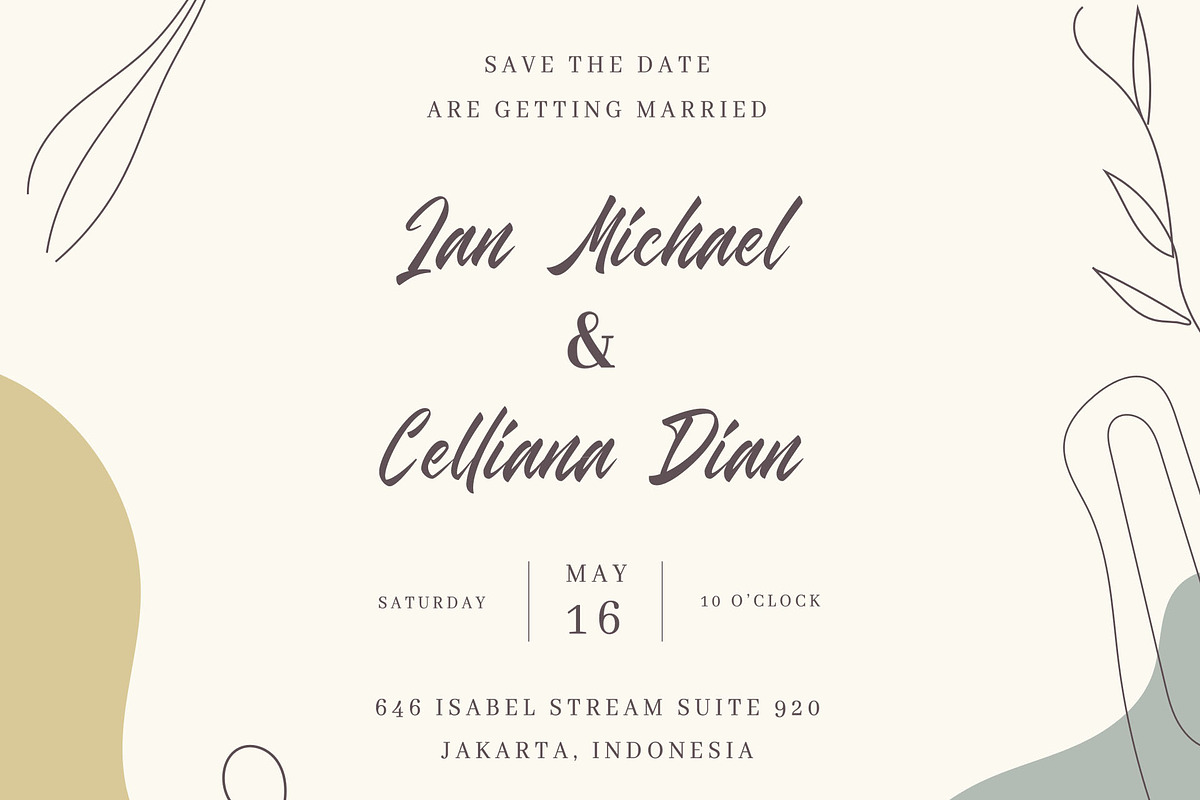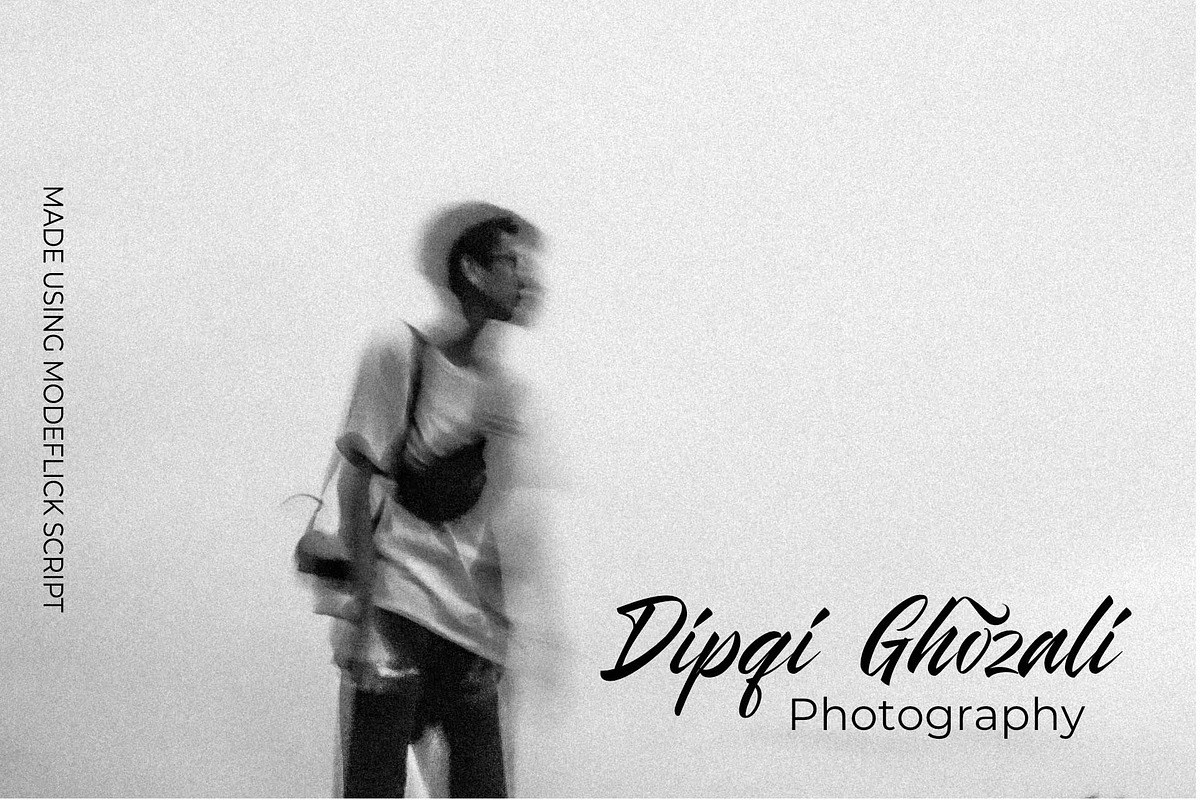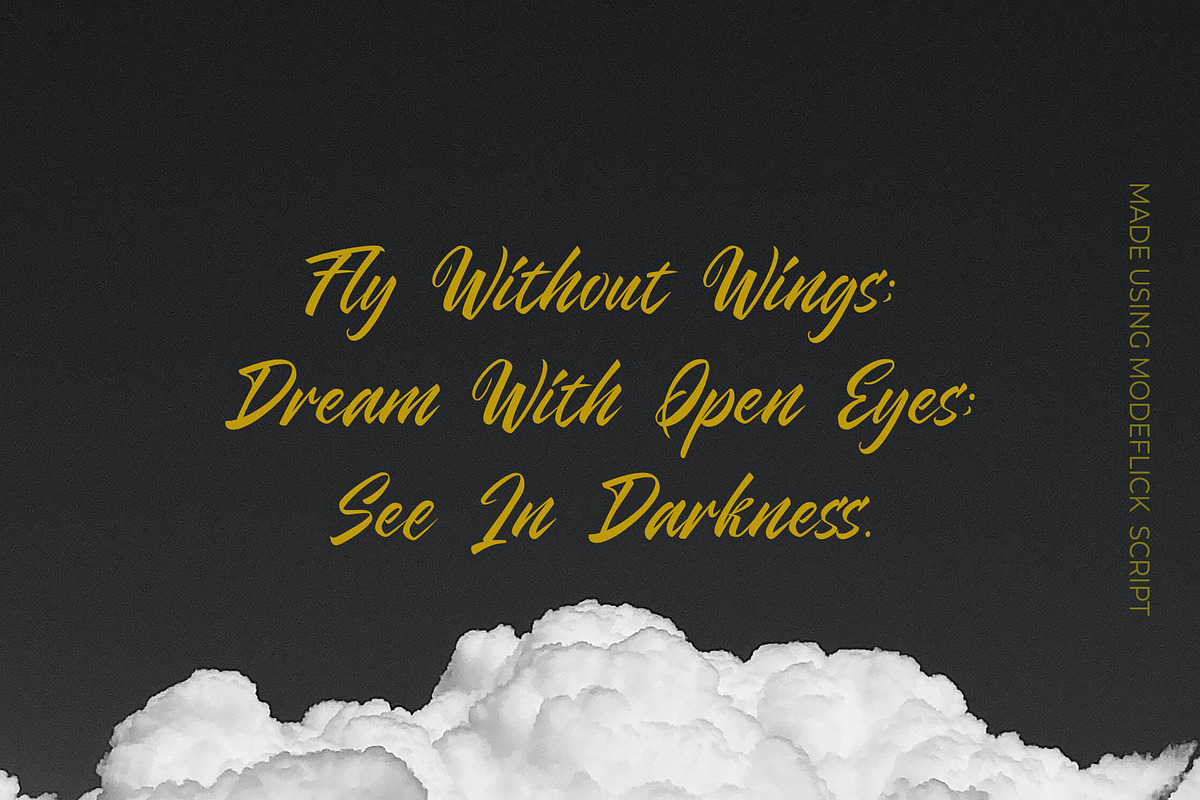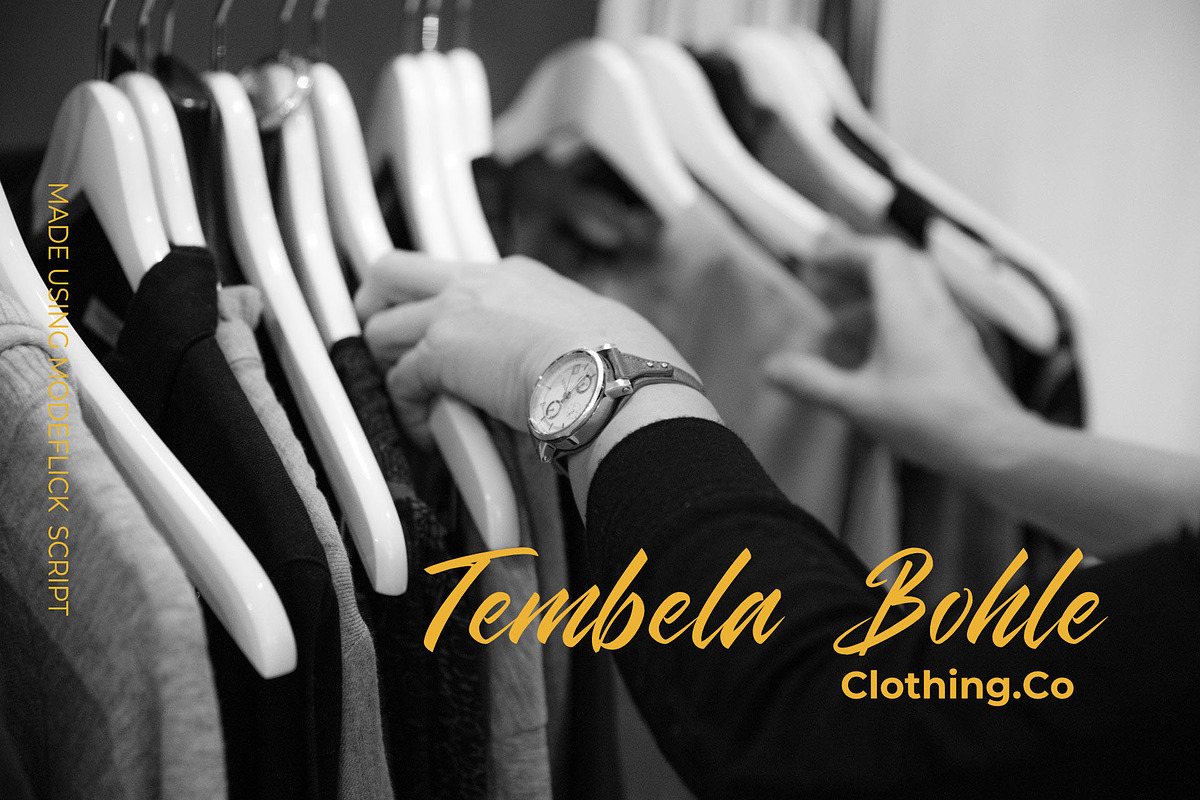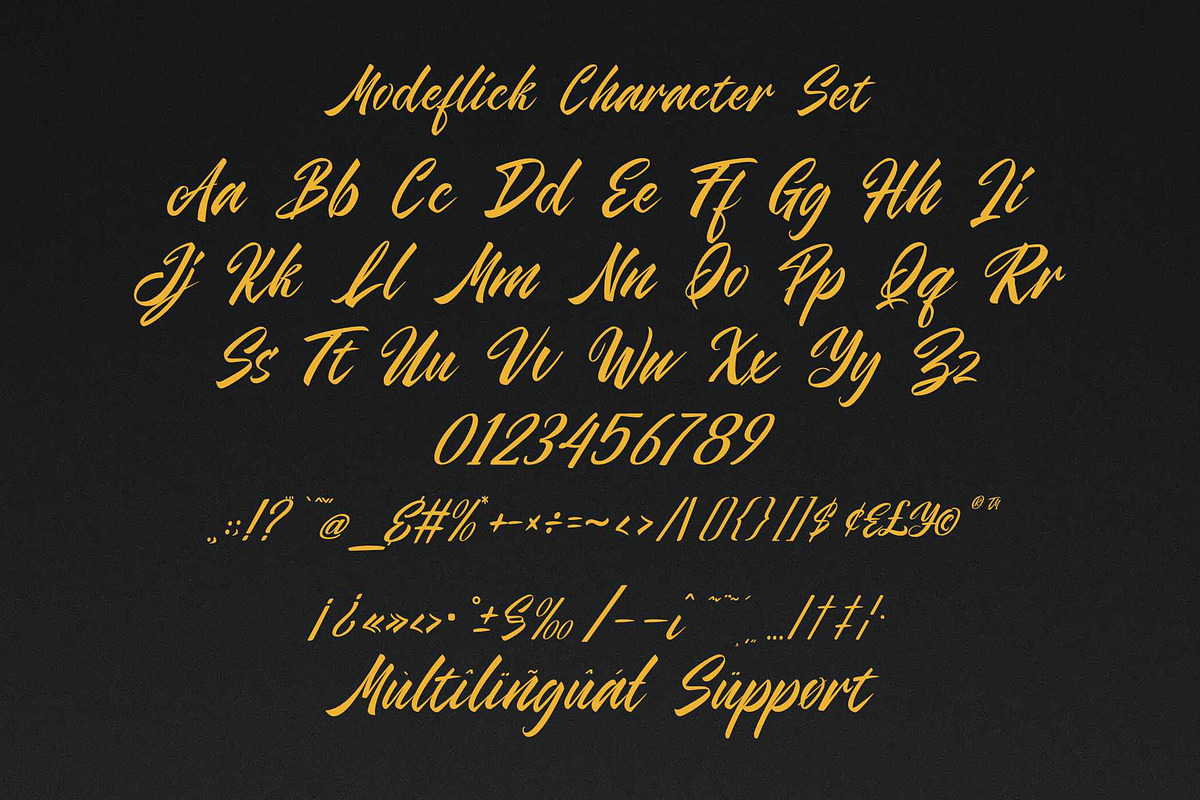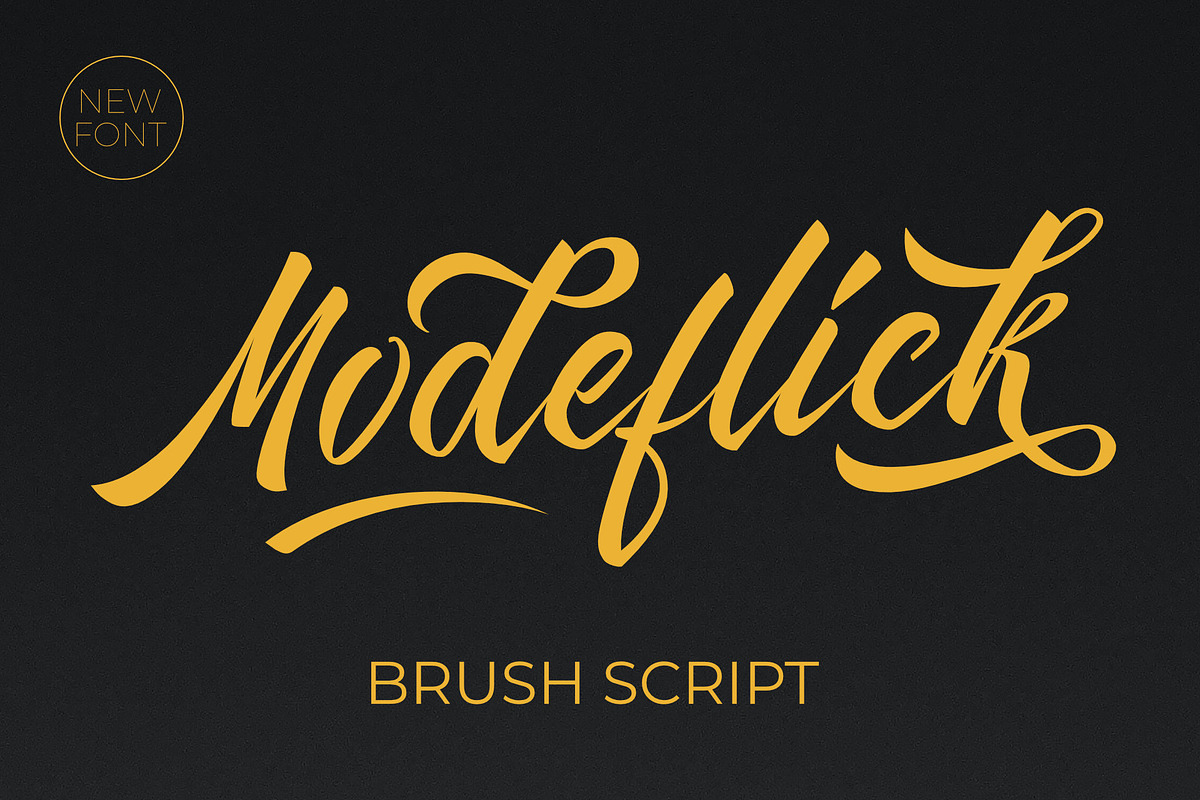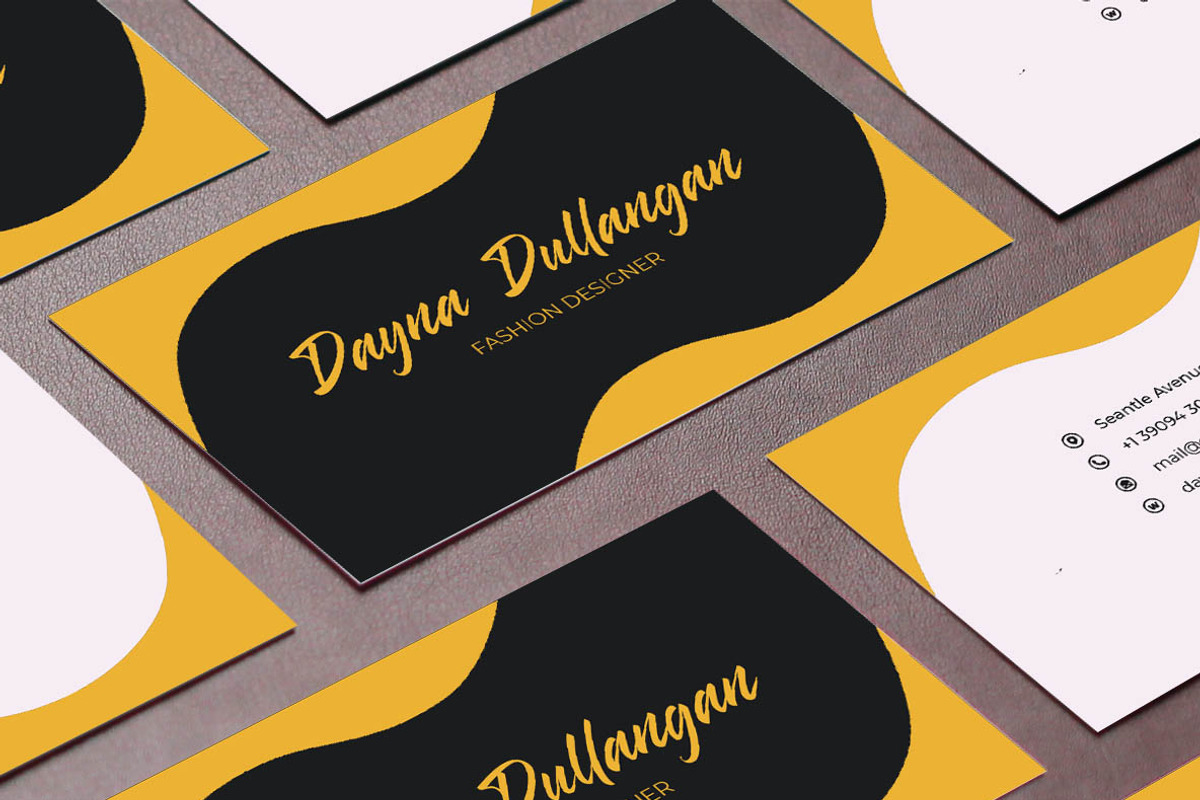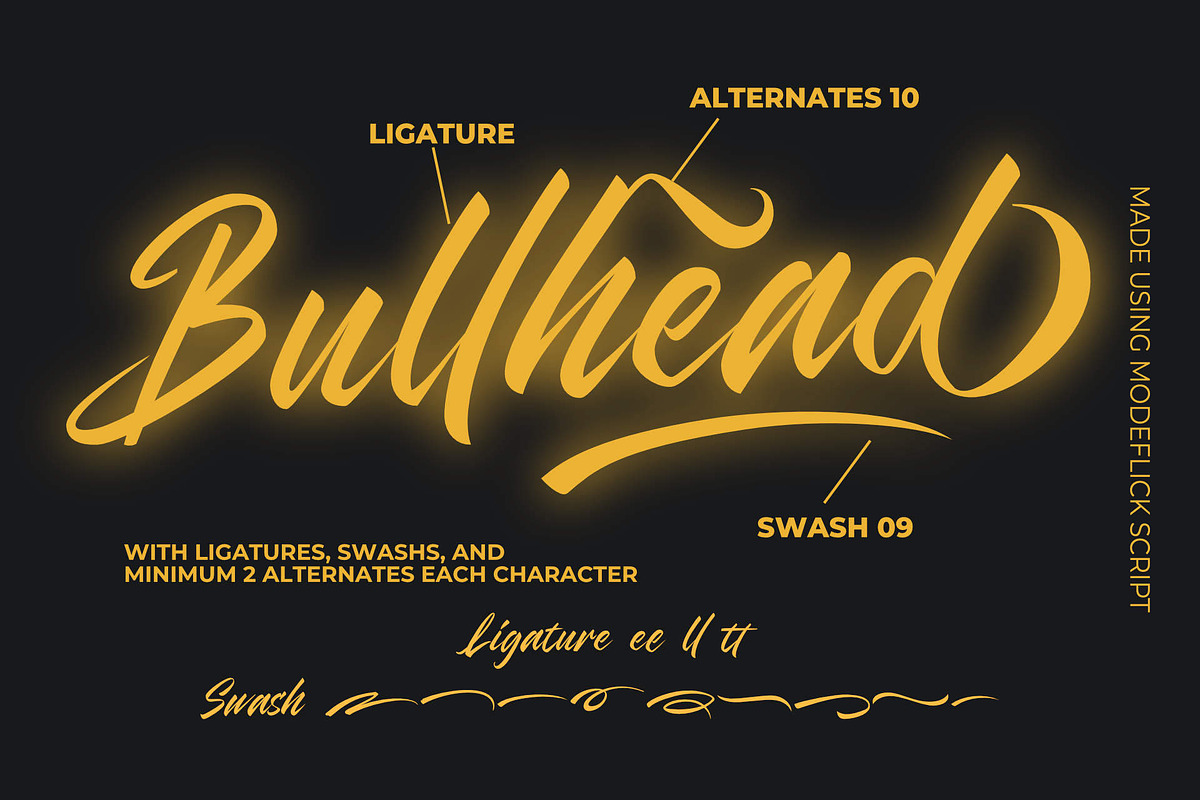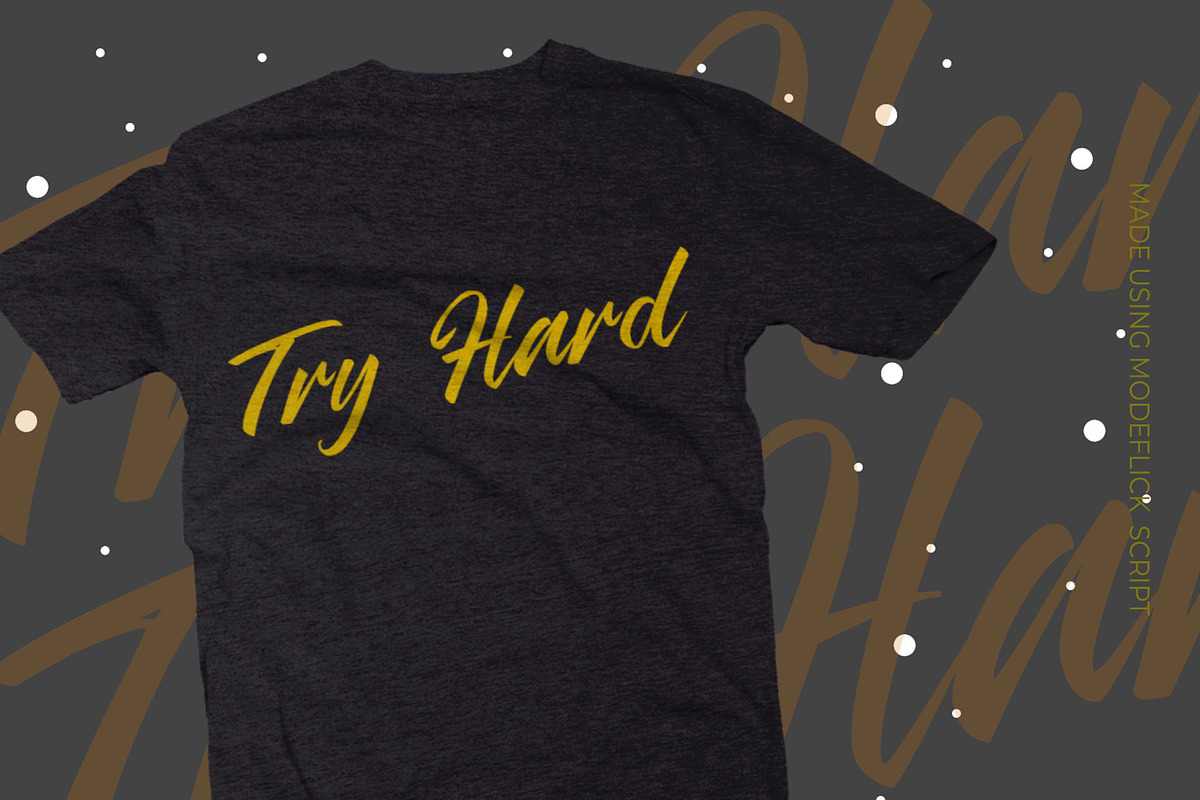
Modeflick Script
Modeflick is a bold and eye-catching brush script. This font perfectly made to be applied especially in logo, and the other various formal forms such as invitations, labels, logos, magazines, books, greeting / wedding cards, packaging, fashion, make up, stationery, novels, labels or any type of advertising purpose.
Uppercase & lowercase Numbers and punctuation Ligatures & Alternates Multilingual PUA encoded